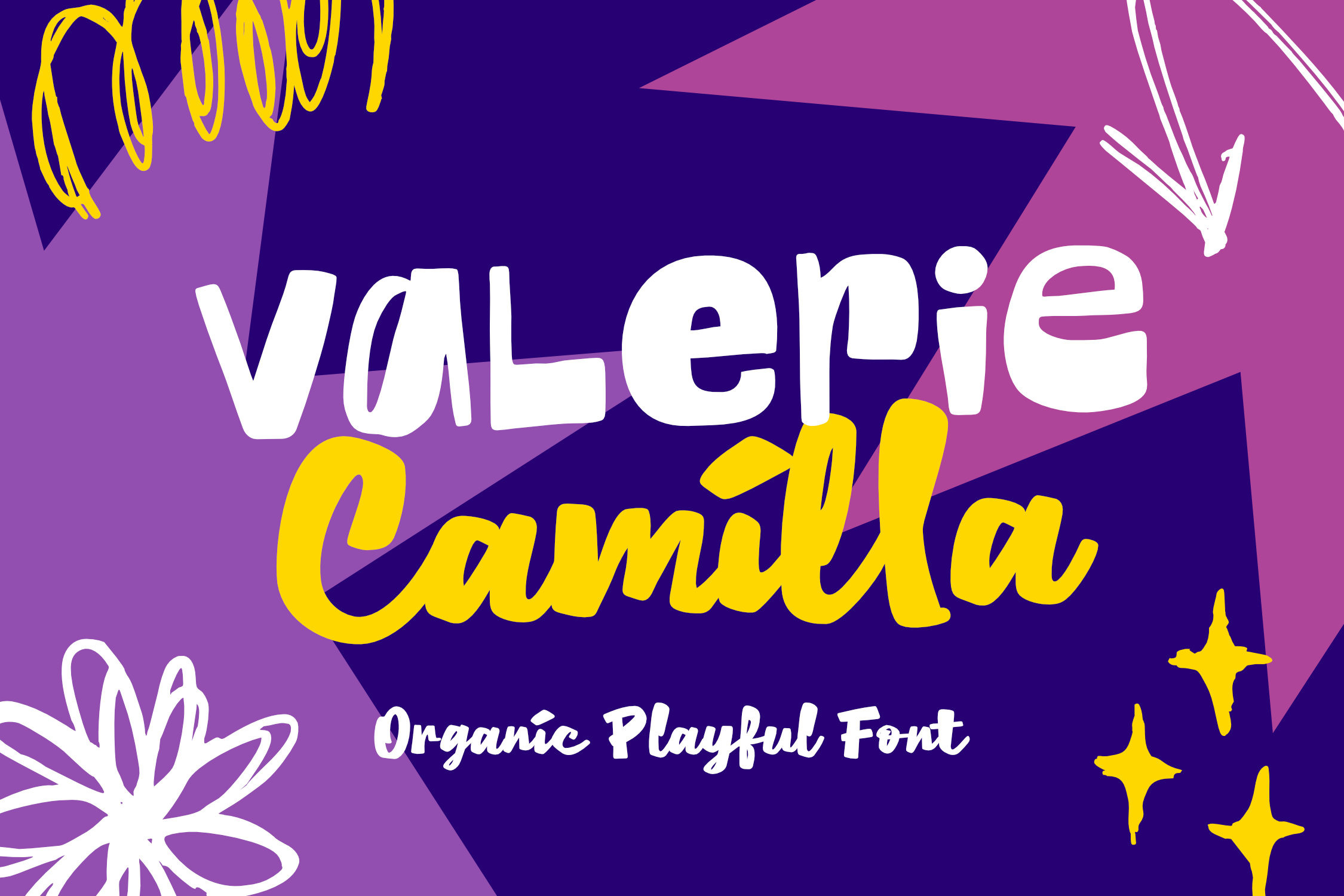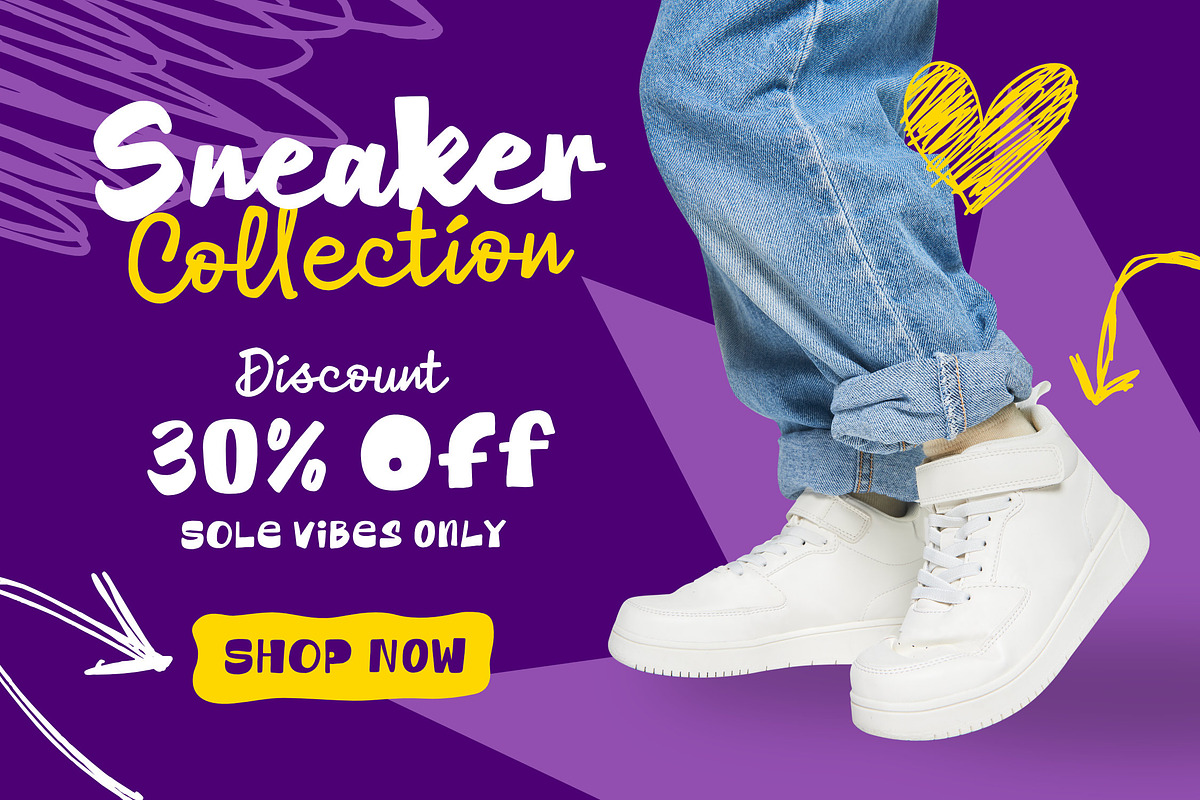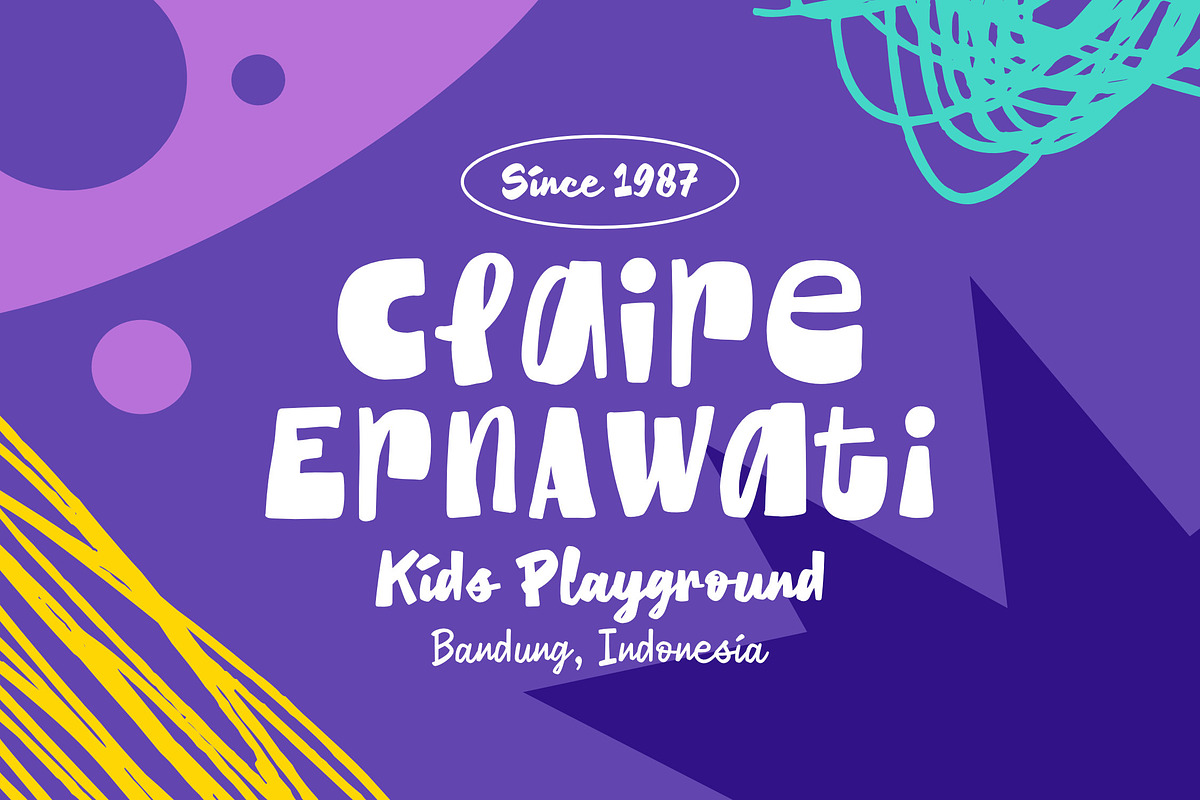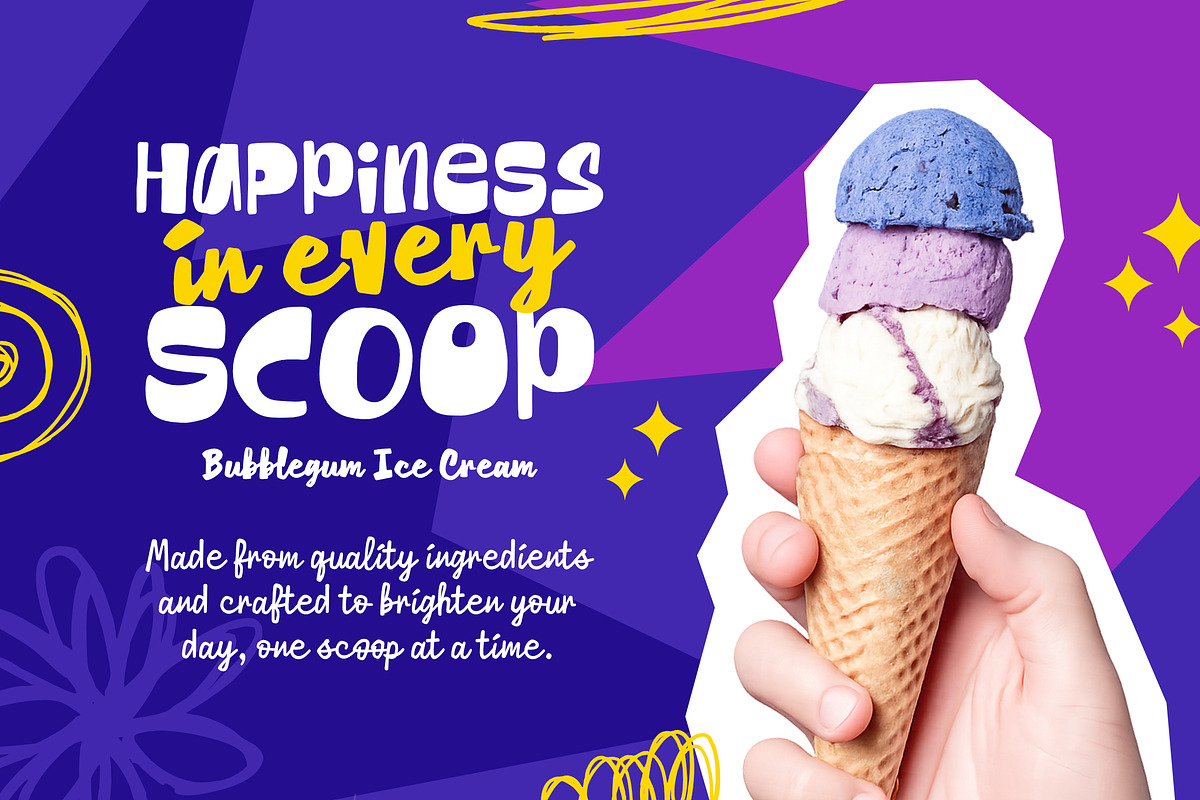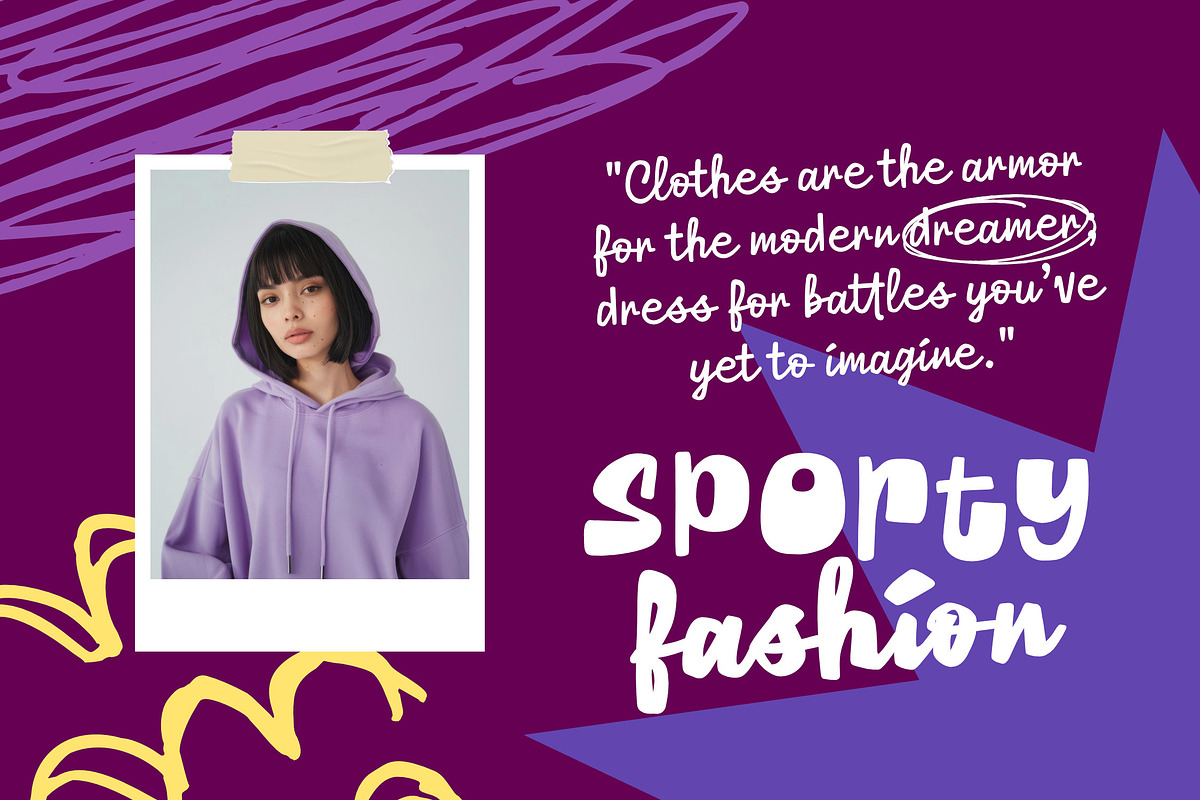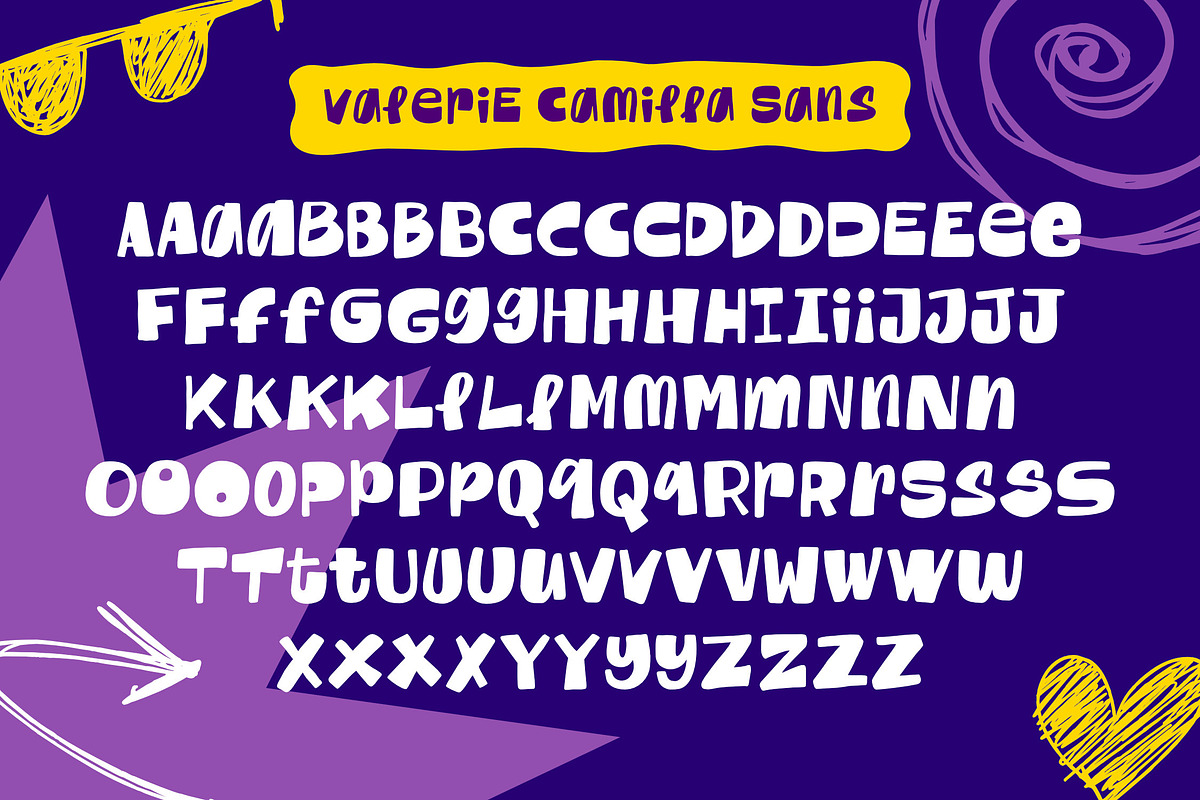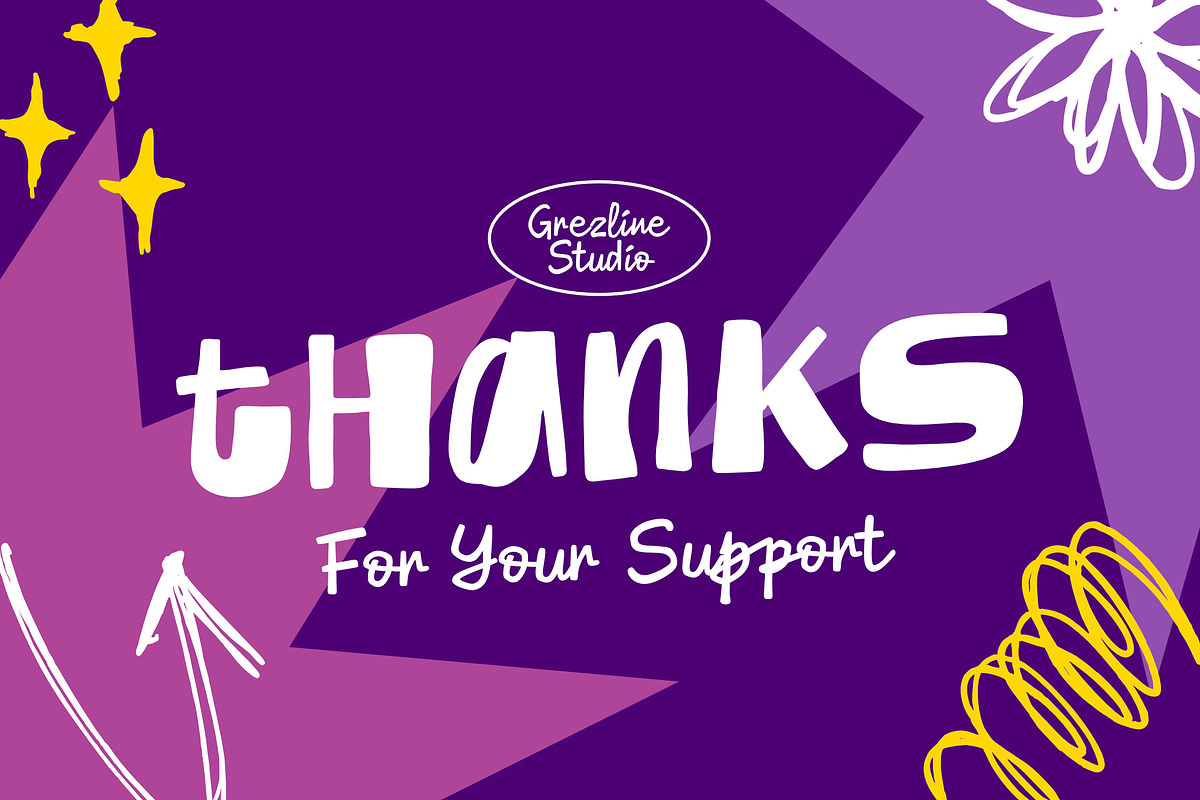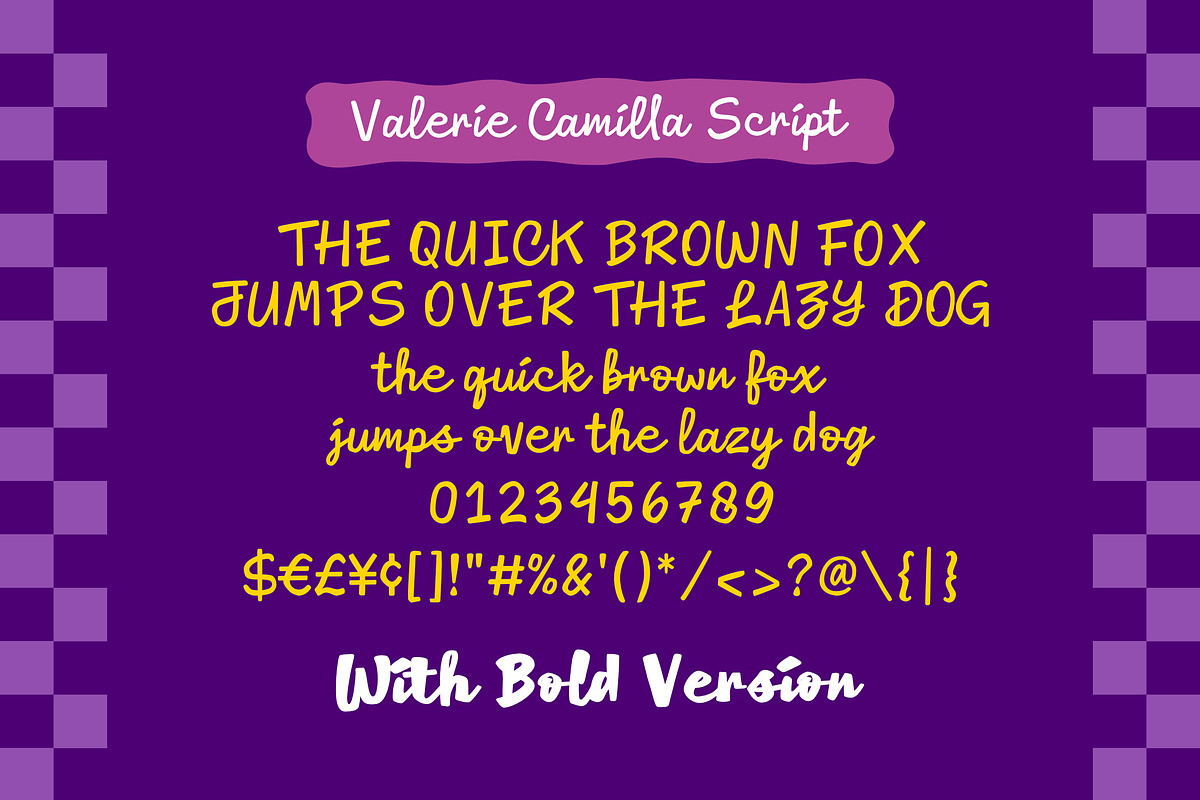
Valerie Camilla - Organic Font
Say hello to Valerie Camila, a font that celebrates creativity, joy and playful expression. Every letter is crafted with organic shapes that feel natural, fun and full of life. Whether you’re designing for kids, lifestyle brands, or cheerful campaigns, this font brings a fresh and friendly vibe to every project. Let your typography feel human, happy, and unforgettable!
- Alternate and Ligature
- Multilingual Language